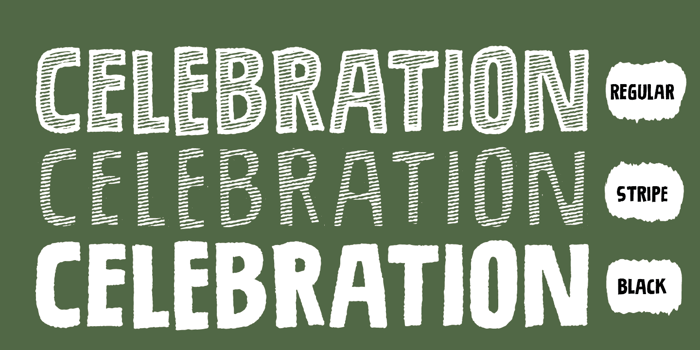
Bouledoug DEMO Font
Bouledoug comes in 3 different versions: Regular, Stripe and Black. Play around with these 3 layers and create that handmade look everybody’s talking about!
Comes with contextual alternates that cycles through 7 different versions of each letter AS you type! Wow!